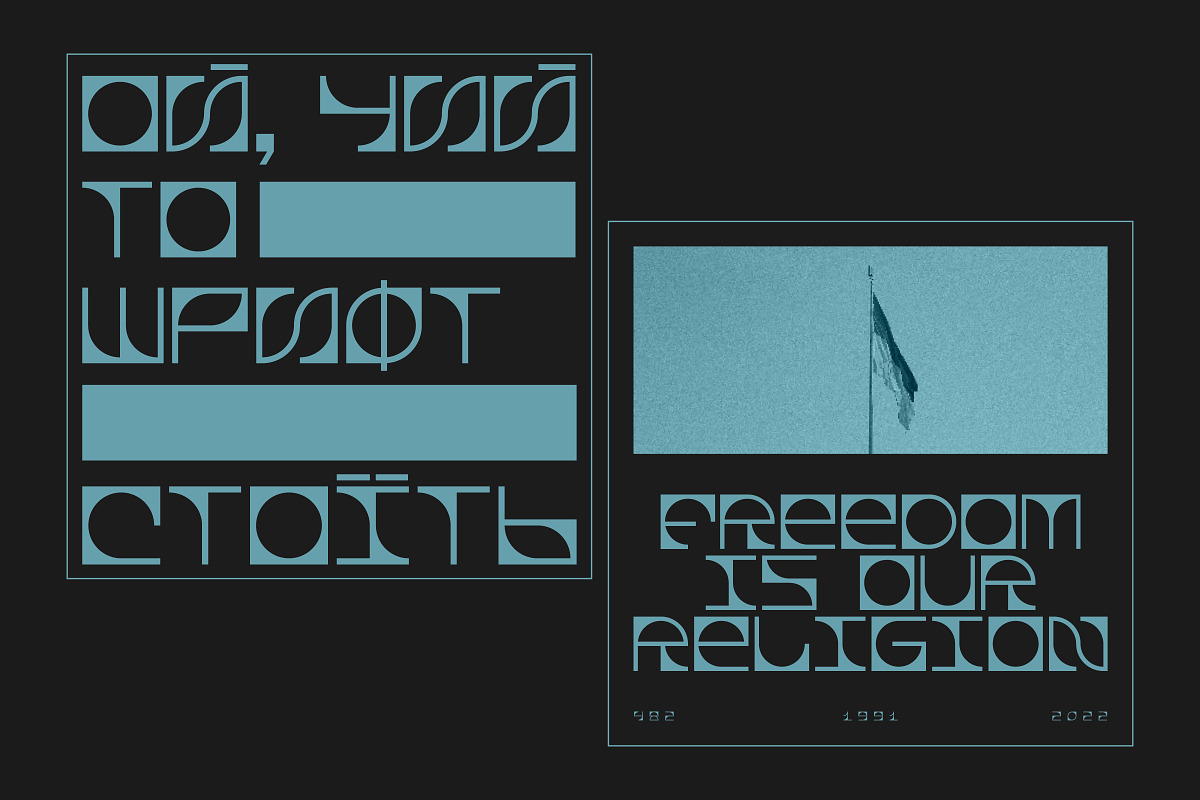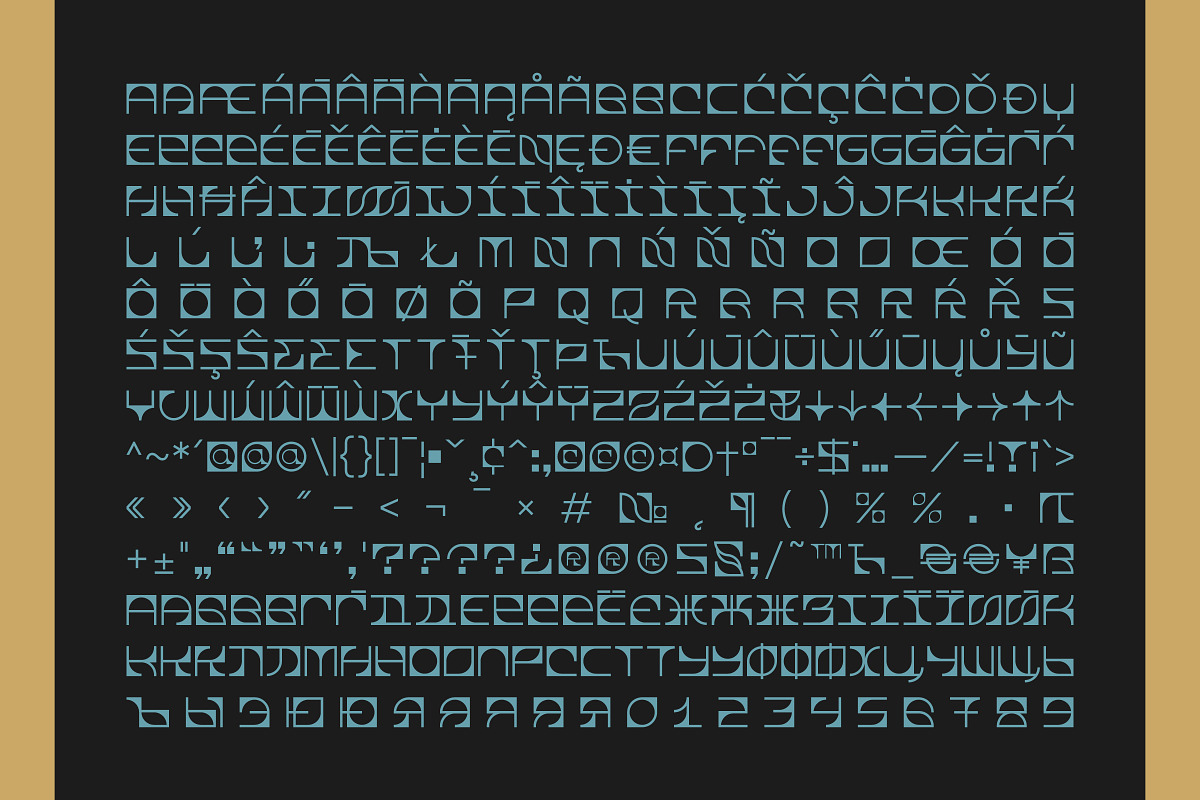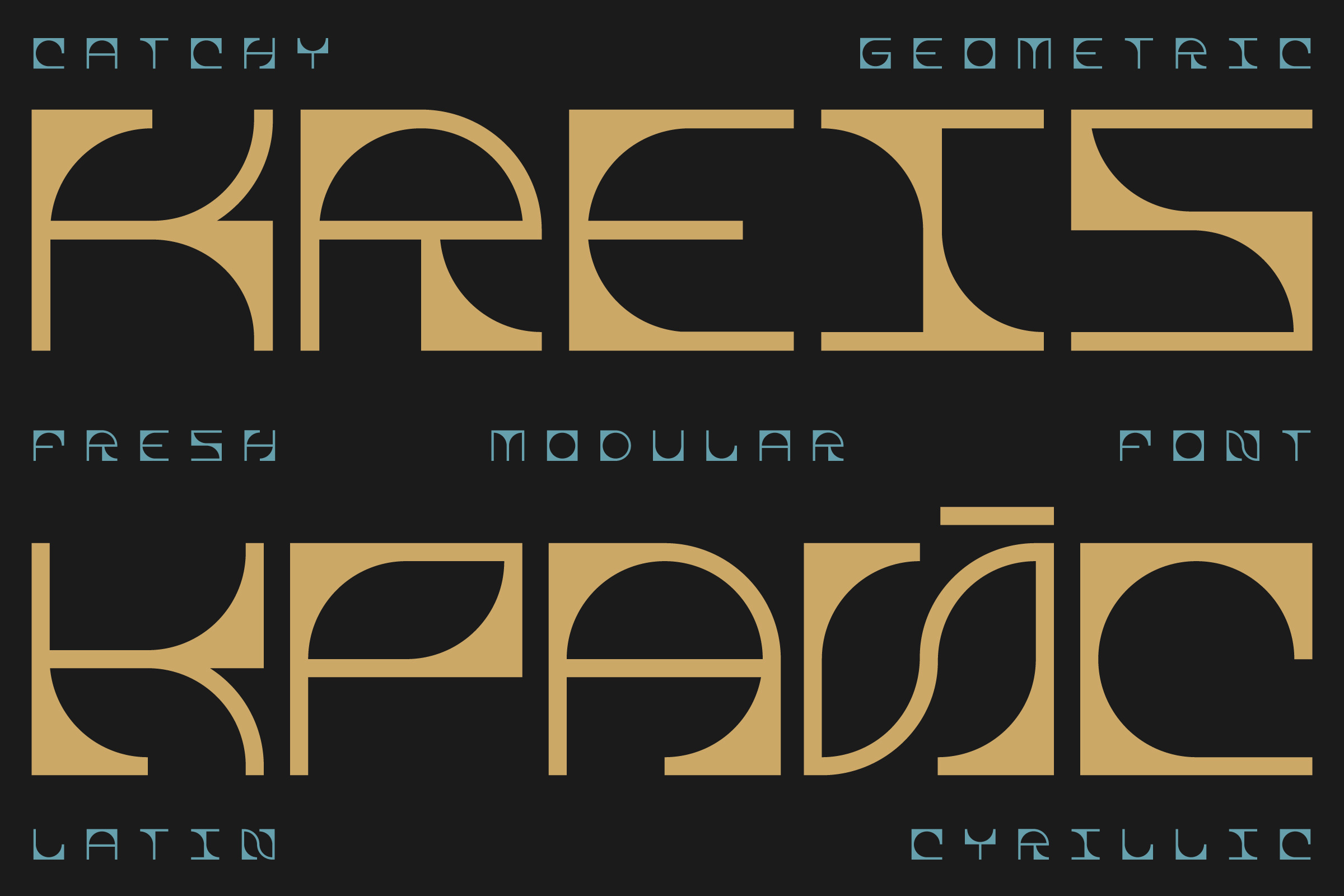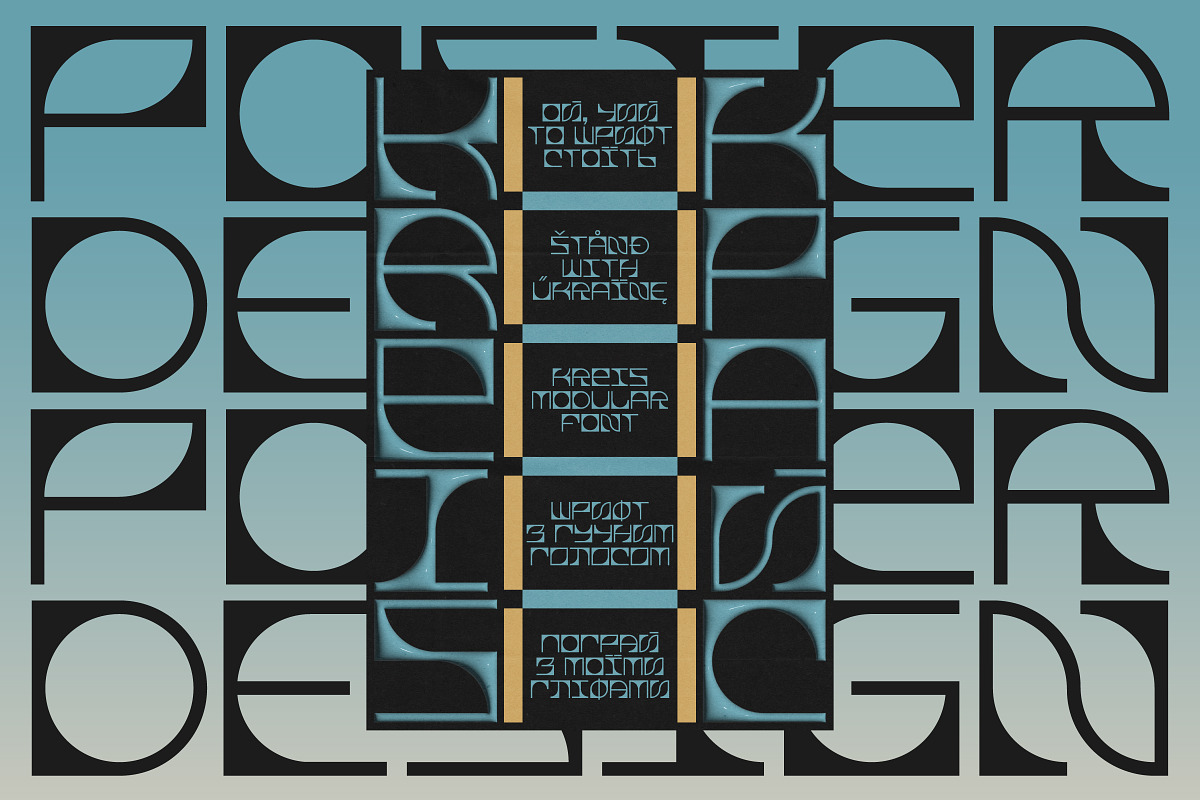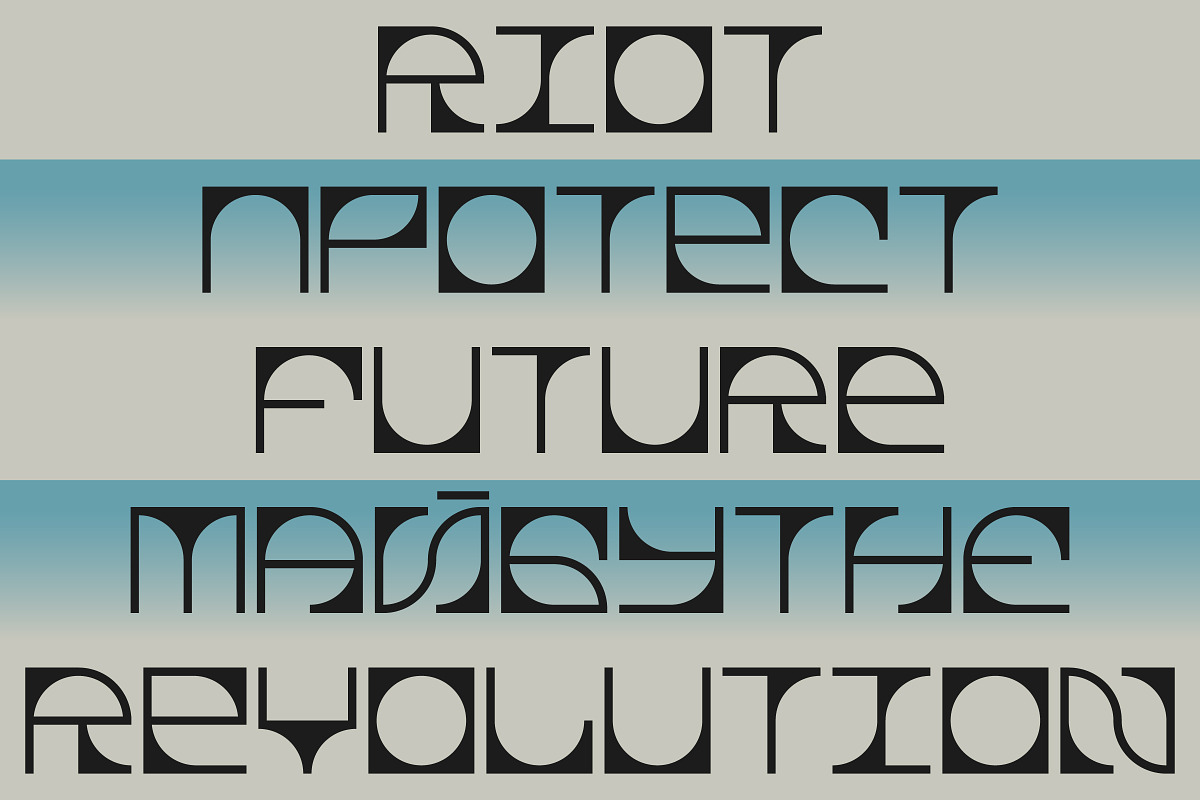
KREIS — Display modular font
KREIS is a modular display font with a modern sharp character inspired by the shape of an old-school CD. It consists of three simple modules with the roots in square and circle shapes. Kreis is the German word for circle. KREIS has a lot of alternates and supports extended Latin and Cyrillic. Letterforms create a geometric typographic pattern, but at the same time, it remains readable if used for a few words. KREIS works best in headings, logos, and strong messages.